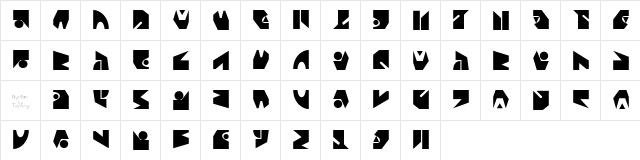
StarTrek Nyrian Normal
Design Context for StarTrek Nyrian Typeface
StarTrek Nyrian is a composed and adaptable typeface that performs quietly and consistently across a wide range of design contexts.